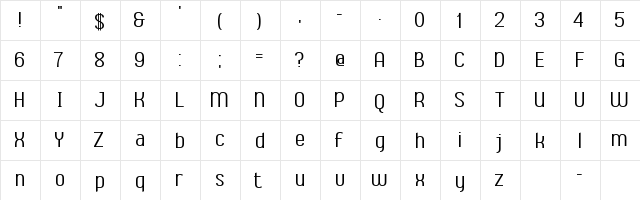
Ambrosia Demo Regular
| Foundry | Tjarda Koster |
| Designer | Tjarda Koster |
Design Context for Ambrosia Demo Typeface
Ambrosia Demo is a composed and adaptable typeface that performs quietly and consistently across a wide range of design contexts.